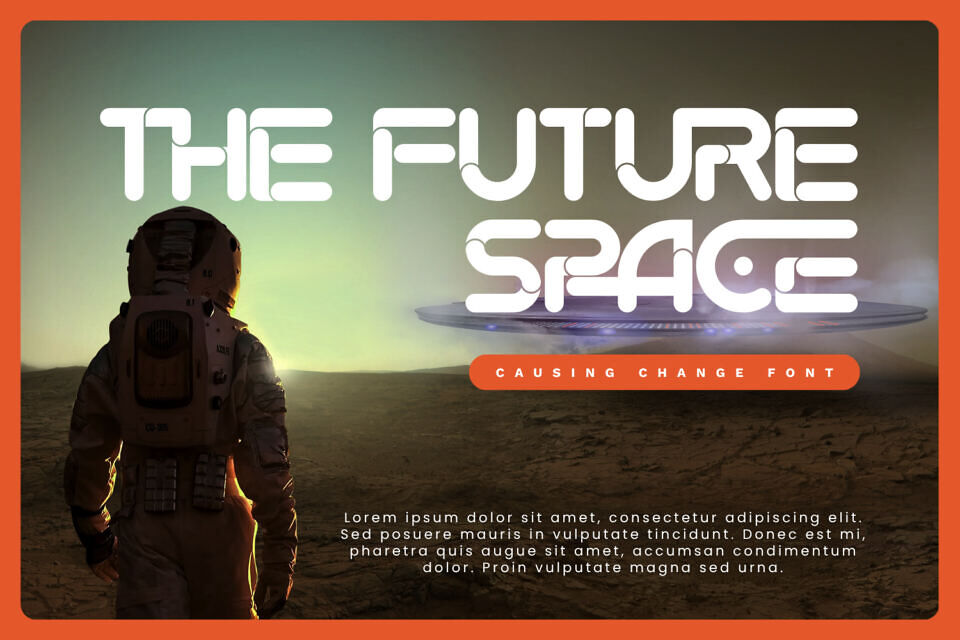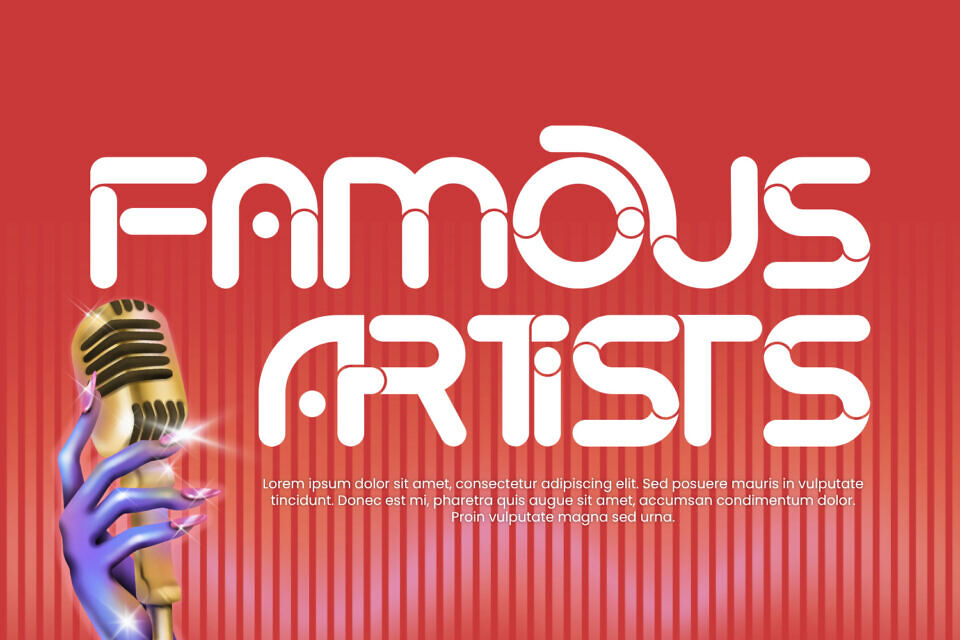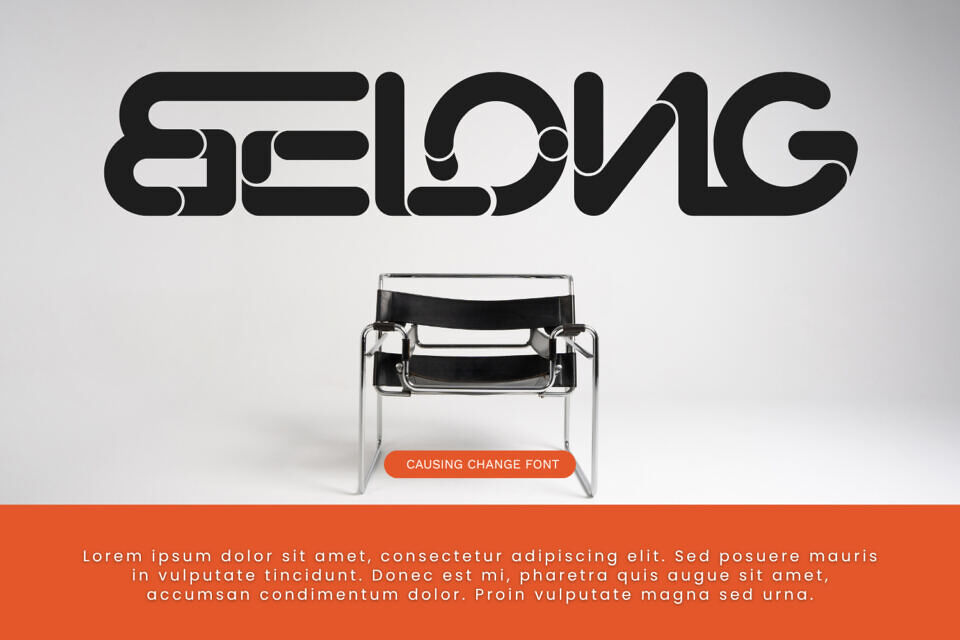
Causing Change Font
Causing Change is a retro-futuristic display font that blends groovy vintage vibes with modern geometric precision. Featuring smooth monoline strokes, rounded letterforms, and unique interconnected details, this typeface creates a bold and playful visual identity that feels both nostalgic and futuristic.
Inspired by retro typography, space-age graphics, and contemporary design trends, Causing Change combines soft curves with modular construction to deliver a distinctive and highly memorable appearance. Its seamless flow and rounded structure bring warmth, creativity, and innovation to every composition.